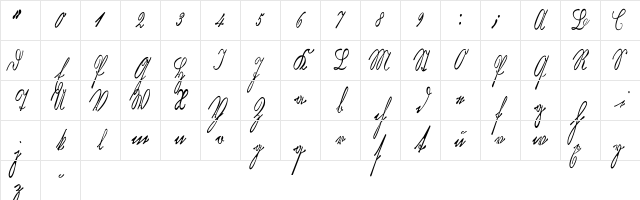
KurrentKupferstichThin Regular Free Font
KurrentKupferstichThin Regular
Foundry: Intellecta Design, by Paulo W
Design Context for KurrentKupferstichThin
KurrentKupferstichThin is a composed and adaptable typeface that performs quietly and consistently across a wide range of design contexts. Its slender proportions lend an understated elegance to any composition.
Who designed the KurrentKupferstichThin Regular font?